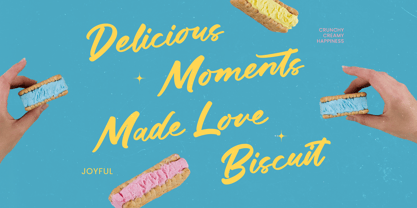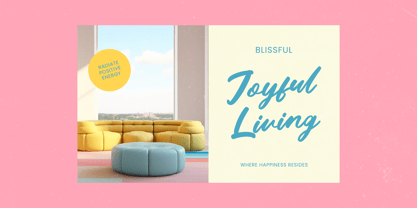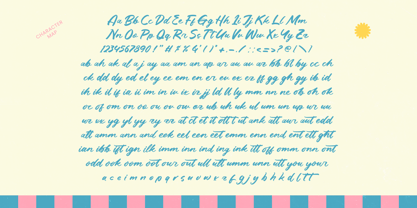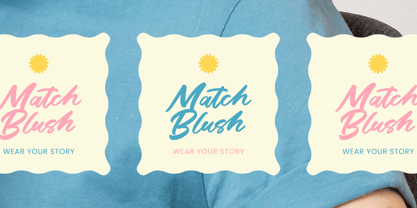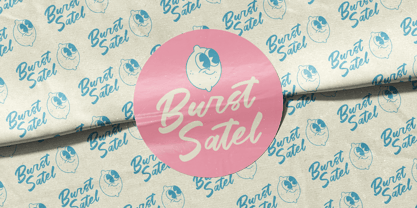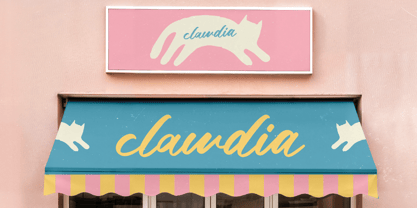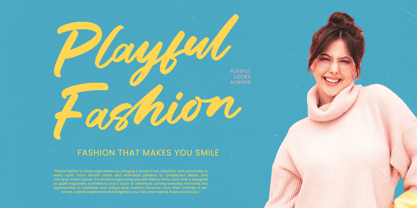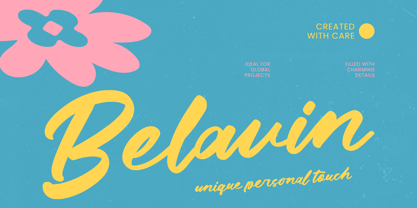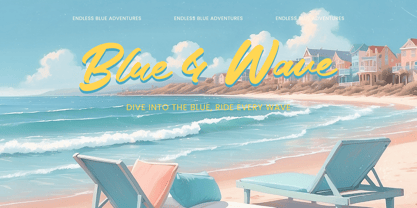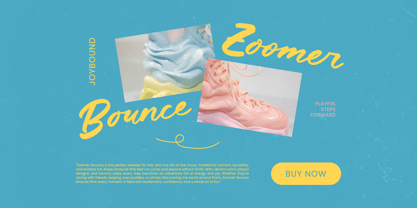
Belavin
La famille de polices Belavin a été conçue par Heru Utama Putra et publiée par Letterena Studios. Belavin contient 2 styles et options de package familial. En savoir plus sur cette famille
Belavin - Bold Handwritten Font is perfectly suited for luxury branding, high-end packaging, and dynamic editorial design. It is the ideal choice for impactful social media graphics, bespoke logo design, and lifestyle advertising where a personal and human touch is paramount. This font is perfect for any project requiring a sophisticated yet approachable presence.